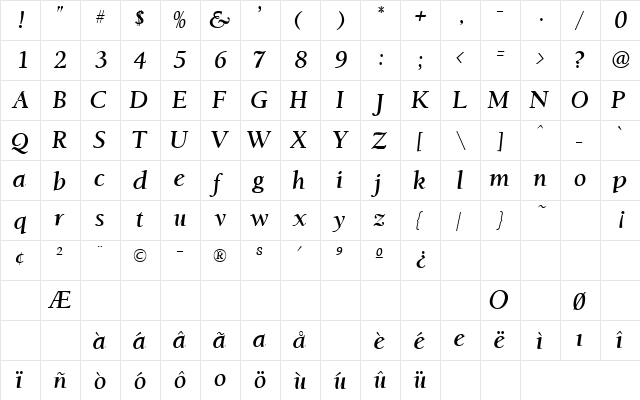
OstentiaSSK Regular
Design Context for OstentiaSSK Typeface
OstentiaSSK offers clean, dependable letterforms without strong stylistic allegiance, making it a practical choice for designers who need flexibility.